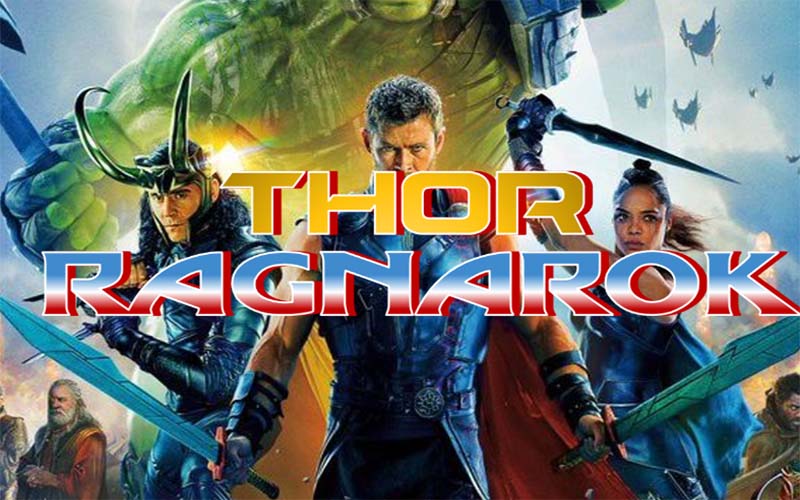
Thor Ragnarok Font is a logo typeface that is totally based on the American superhero film which includes Marvel Comics characters. Thor is designed by Marvel Studios and shared by Walt Disney Studios Motion Pictures.
This font was created by Juan Casco. This display font family is available in a single weight that comes with 236 characters. Also, it can support multiple languages ​​that expand its reach around the world.
You can openly use this font for various work operations. For example, movie posters, animated movie titles, web developments, app developments, t-short printing, book covers, logo designs, official cards, and so on.
This remarkable font has the strongest ability to work in long text without expanding the texture. Because of its thick structure, it retains well. You can get it free from anchor fonts.
Thor Ragnarok Font
Font Name:Thor Ragnarok Font
Style:Display, Fancy, Logo, Typeface
Font Designer:Juan Casco & NubeFonts
This remarkable font family took its type from historical types. Its excellent regular weight is suitable for any wide text design such as logos, banners, and more.
In addition to the numbers and ligatures of the upper, lower case schemes, there are some special symbols, including punctuation marks. Check out the pictures on the alphabet to see what it looks like.